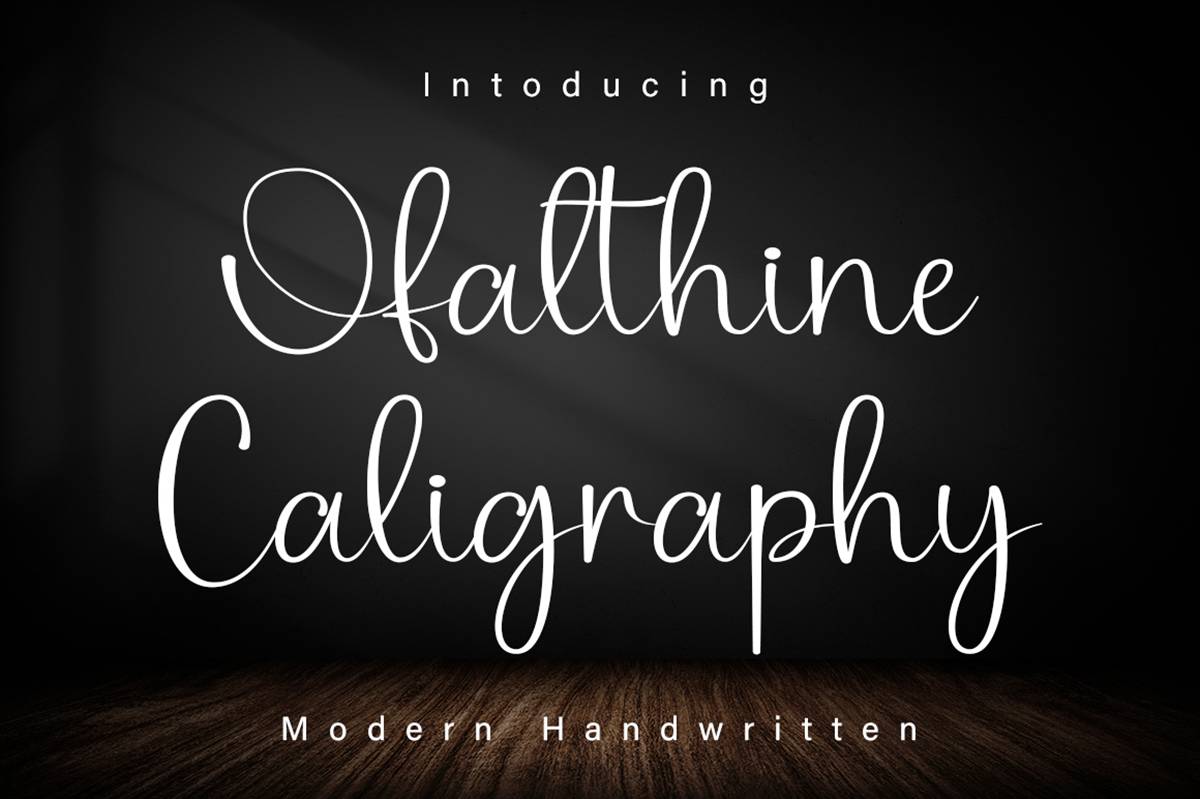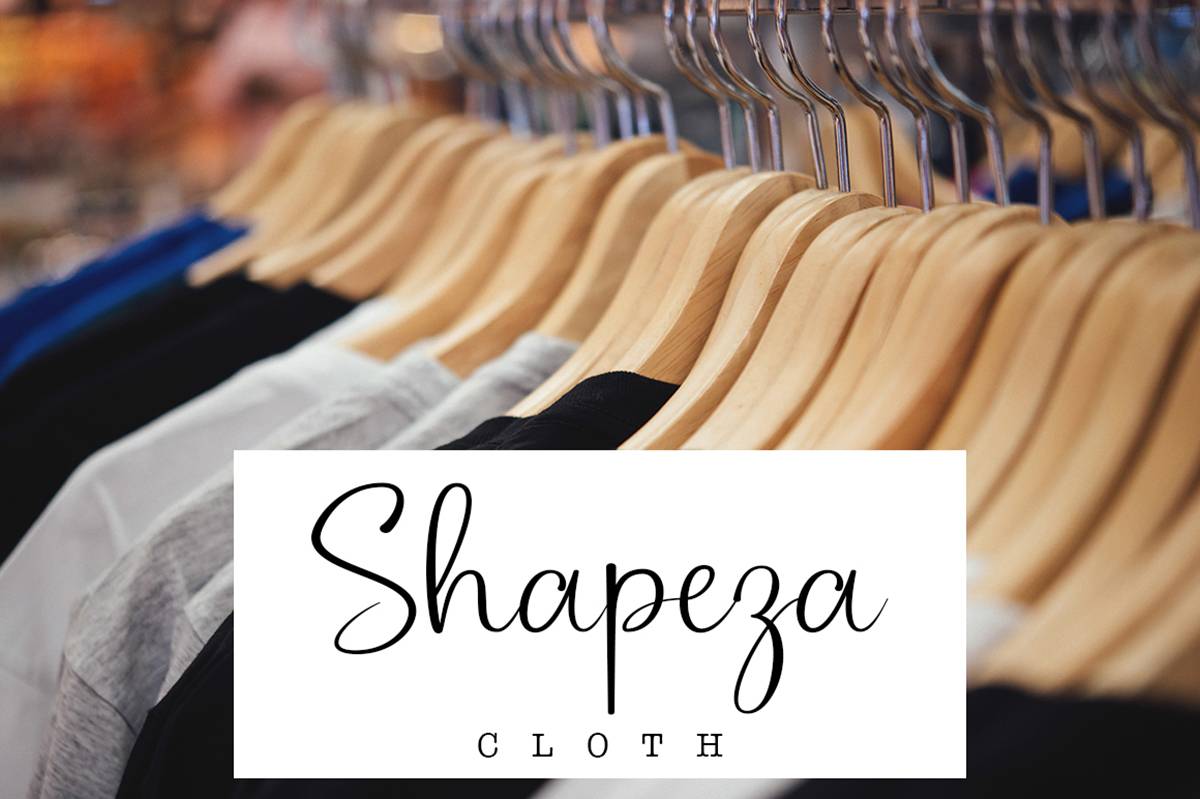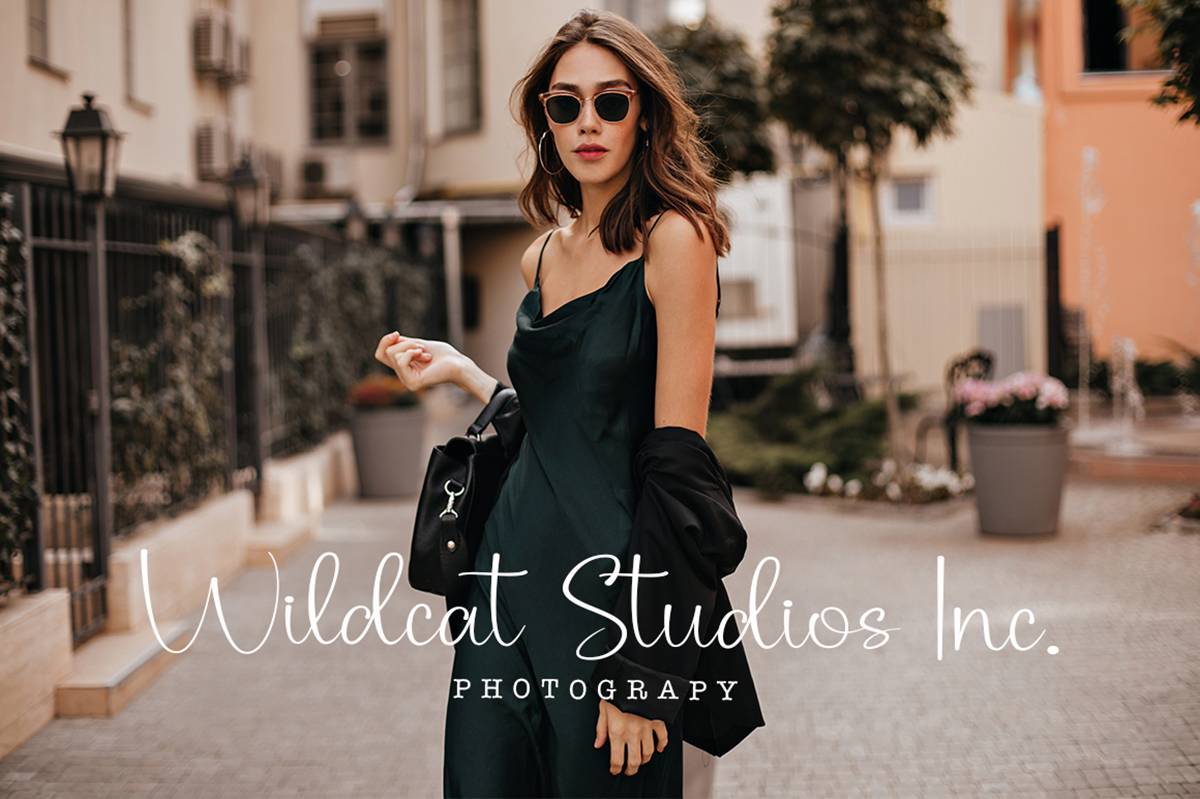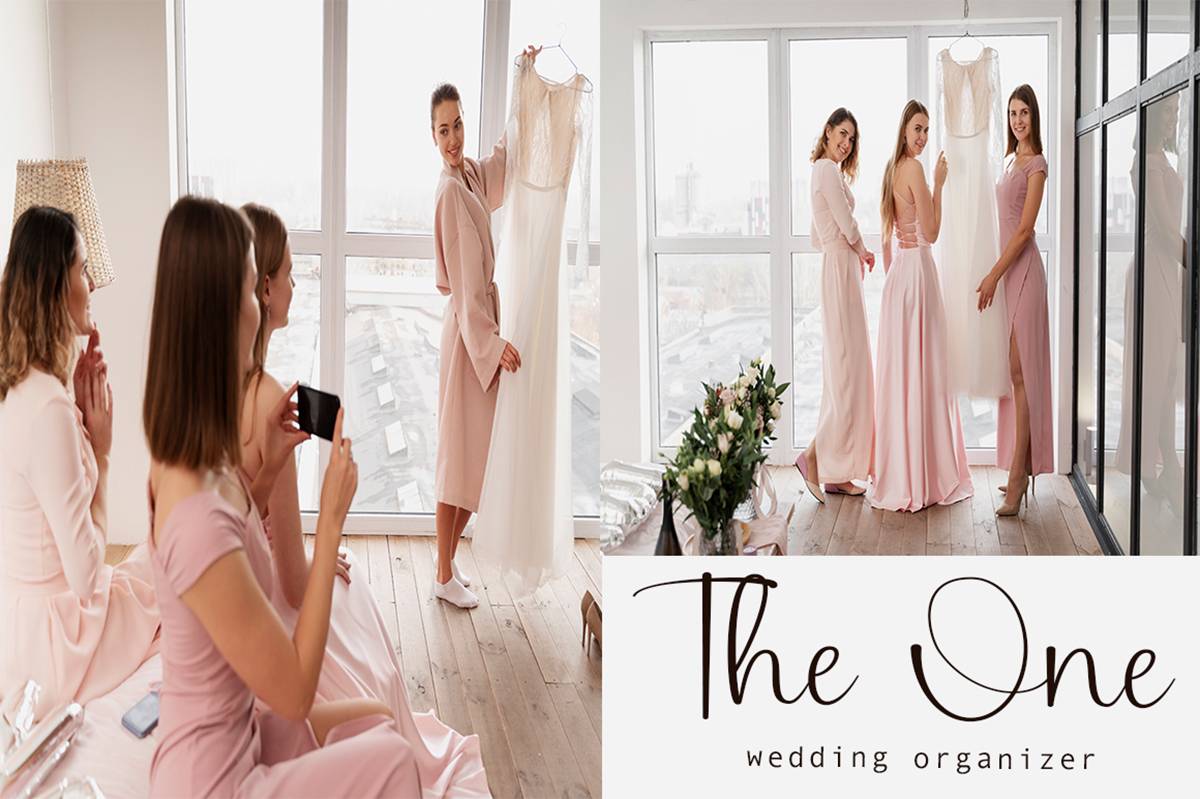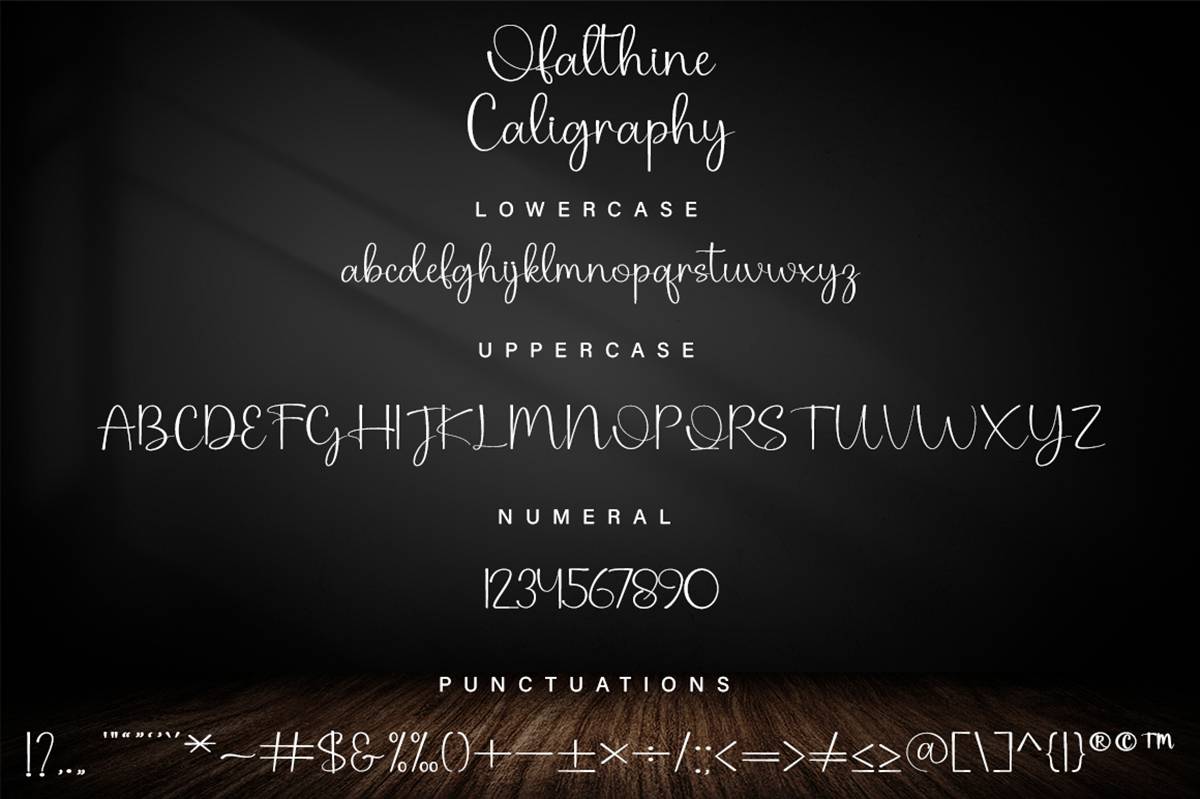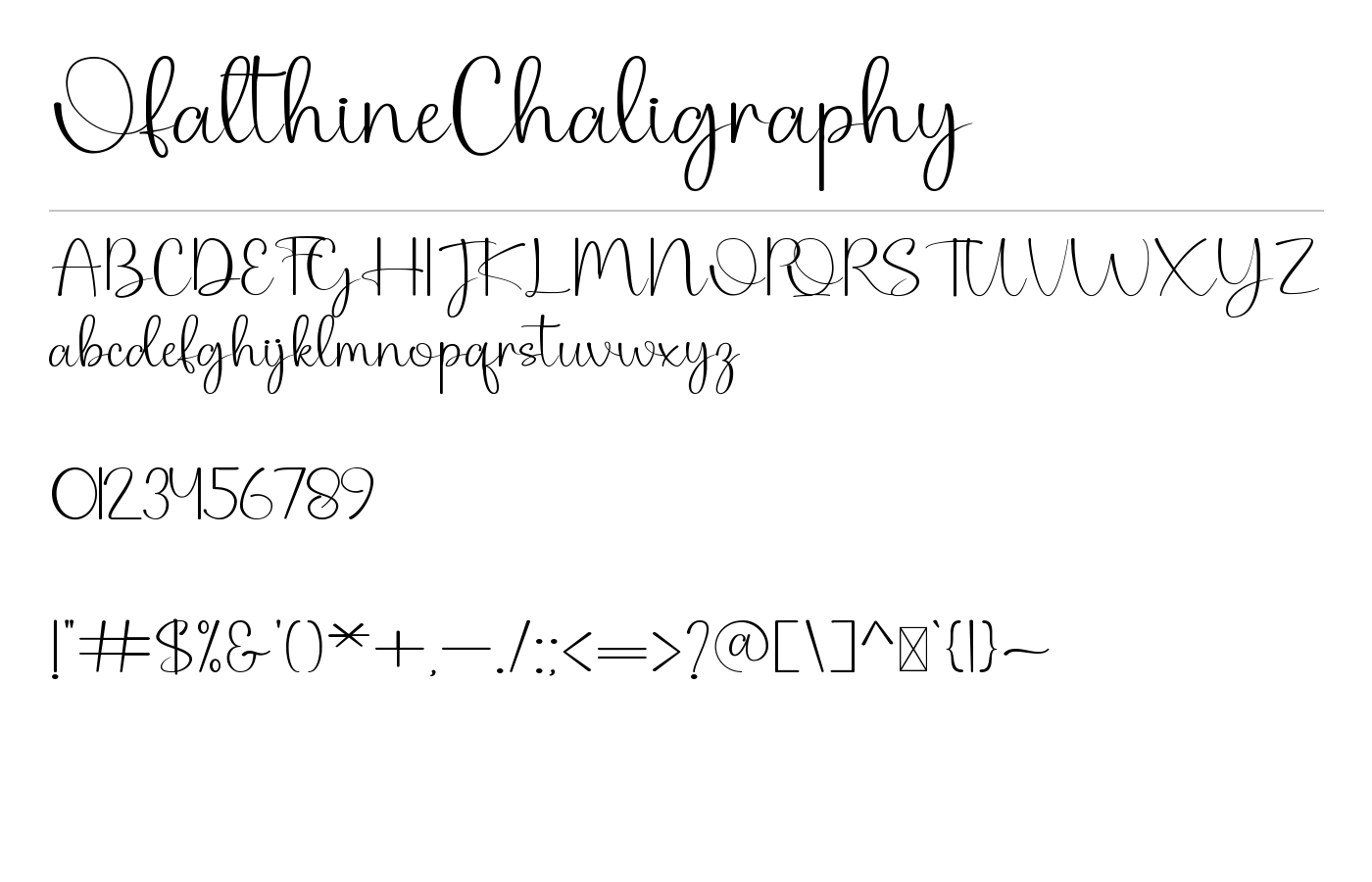
Ofalthine Calligraphy is a delicate, script-style font with slender strokes and elegant, flowing letterforms that evoke a hand-drawn, artistic feel. Its light weight and tall, narrow structure make it perfect for romantic or feminine designs, such as wedding invitations, greeting cards, and boutique branding where a graceful, personal touch is desired. This font’s airy and refined character adds a touch of sophistication, making it well-suited for headlines and decorative text rather than dense body copy.
Ofalthine Caligraphy Font
About Ofalthine Caligraphy Font
| Font family | Ofalthine Caligraphy Font |
| Release date | 2022-09-29 |
| Designer | Wahyudi |